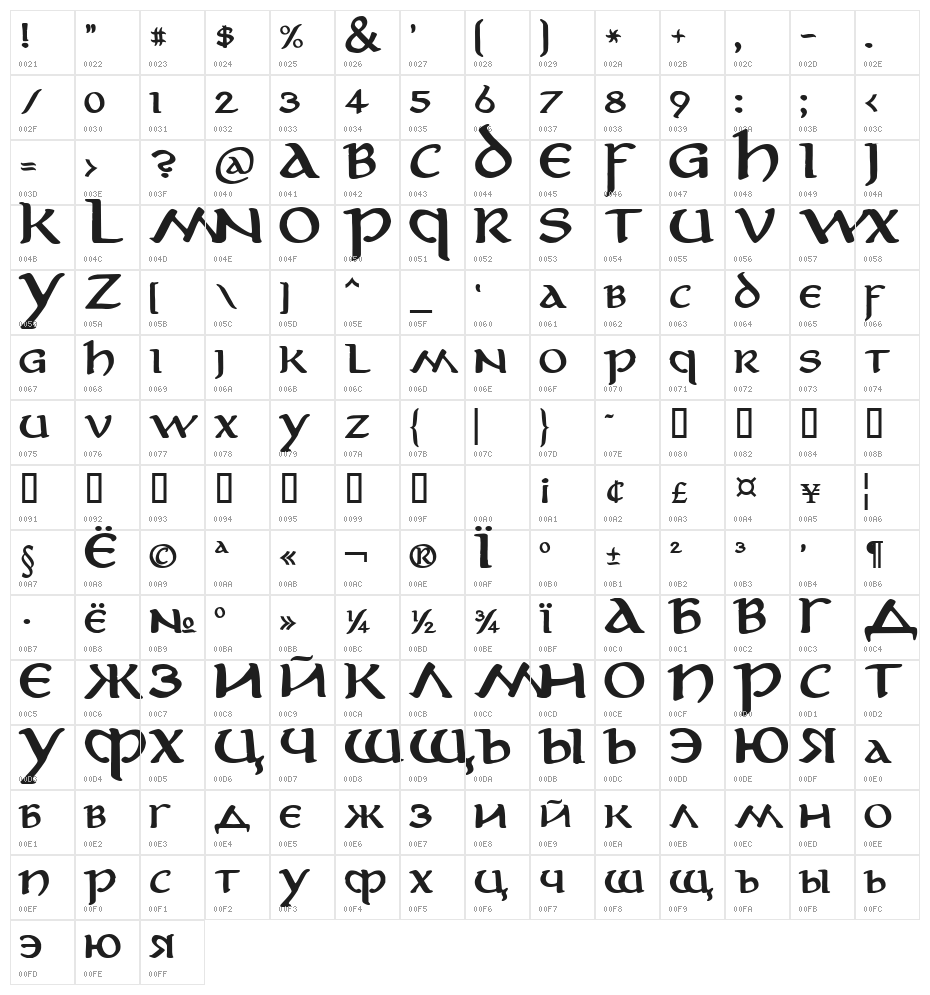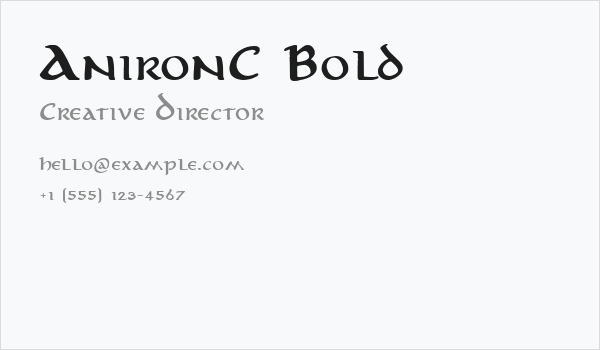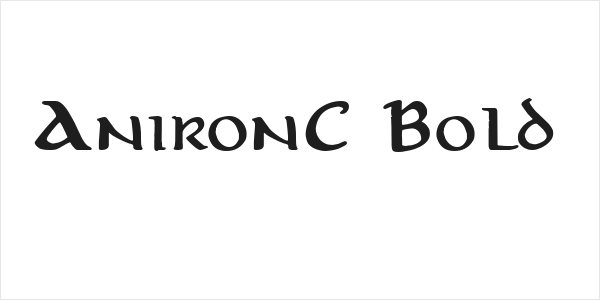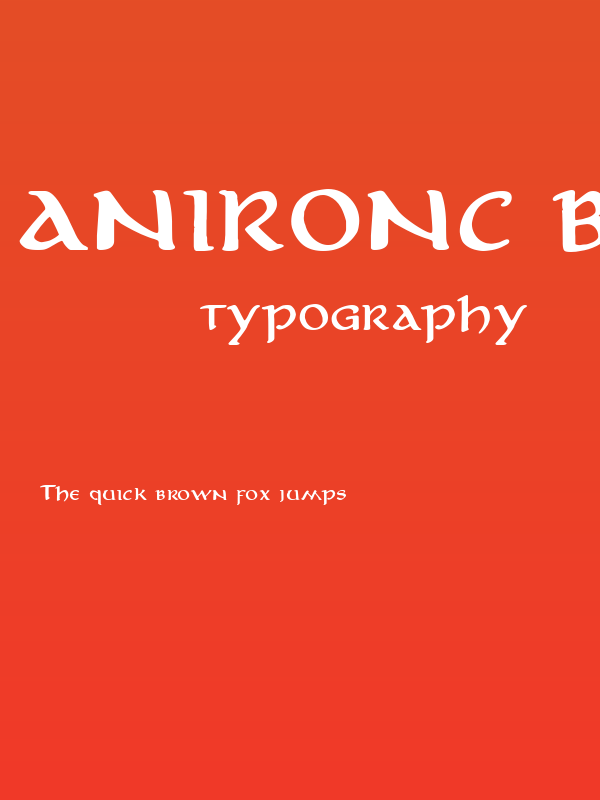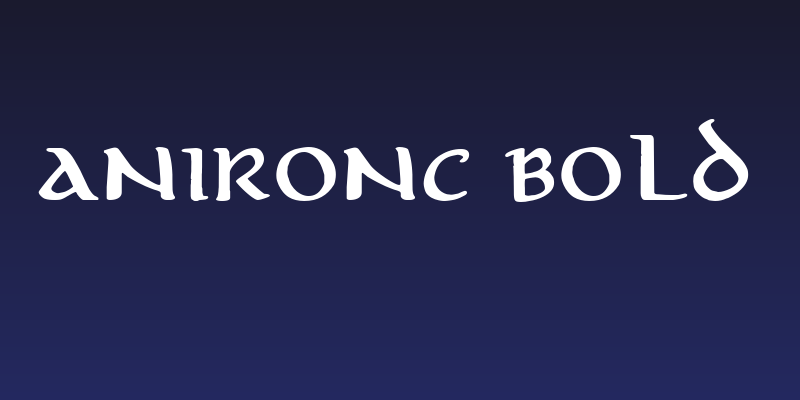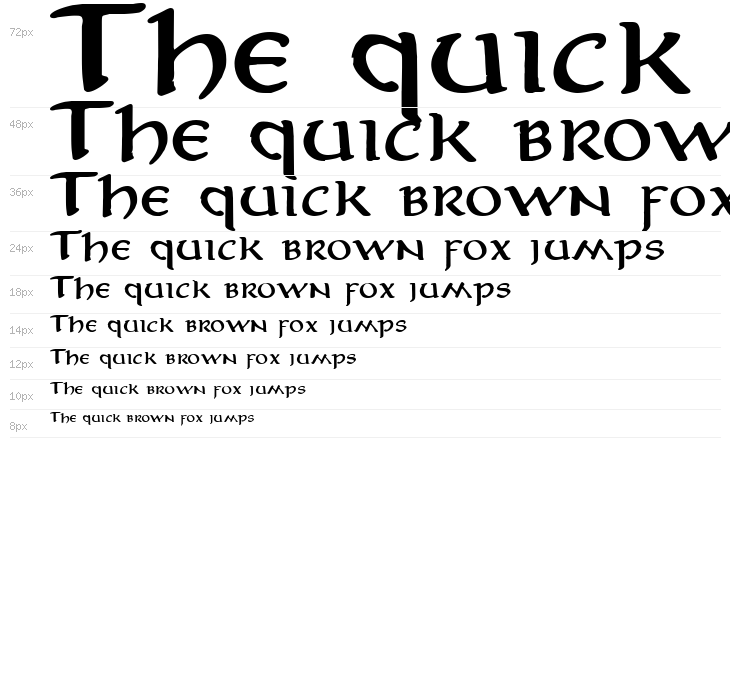
AnironC Bold Font
AnironC Bold Description
This font features a distinct, medieval-inspired design with a strong, bold presence. The characters exhibit a unique blend of sharp angles and smooth curves, reminiscent of ancient scripts and calligraphy. The uppercase and lowercase letters maintain a consistent style, with a slightly condensed form that enhances readability while preserving its decorative appeal. The numerals and special characters are crafted to match the overall aesthetic, making it suitable for thematic projects. The font's intricate details and historical flair make it ideal for creating a sense of fantasy or antiquity.
Overall StyleVintage
Proposed ProjectsIdeal for fantasy book covers, historical-themed posters, and medieval event invitations.